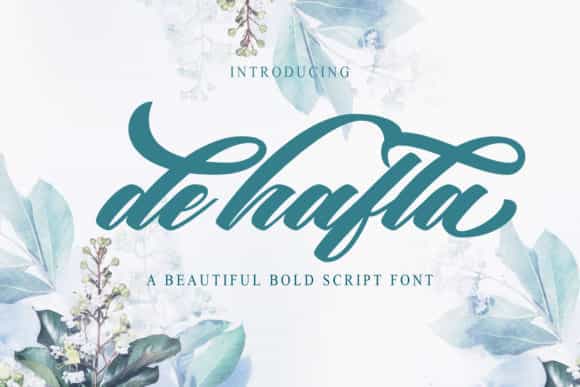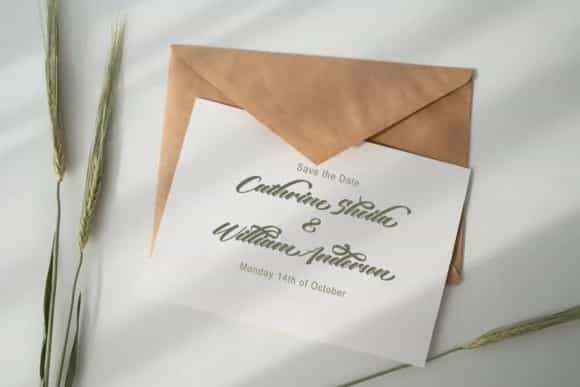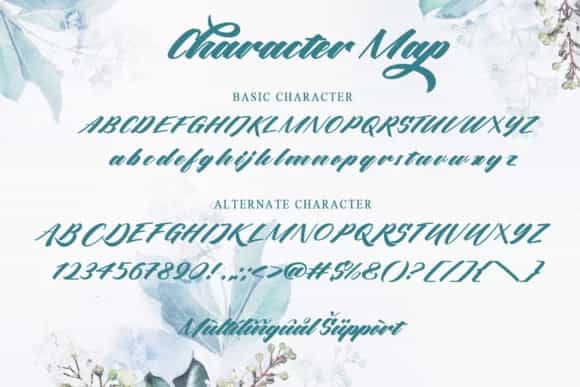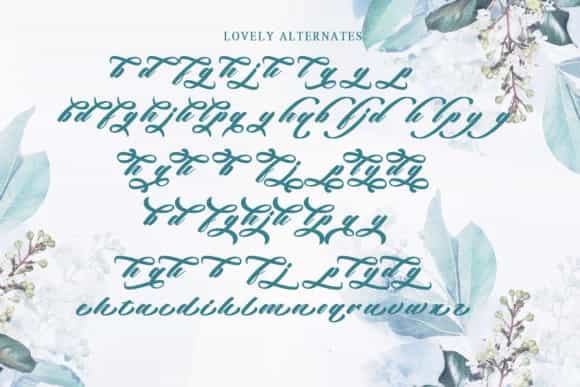
Introducing De Hafla Font. It is a font that is of the script type with the added properties of being both beautiful and bold; with the characters flowing. As a matter of fact, it is perfect for any type of project that you may have in mind! De Hafla best for branding projects, logos, wedding designs, social media posts, advertisements, packaging, tshirt designs, product designs, labels, photographs, watermarks, invitations, stationaries and any other projects.